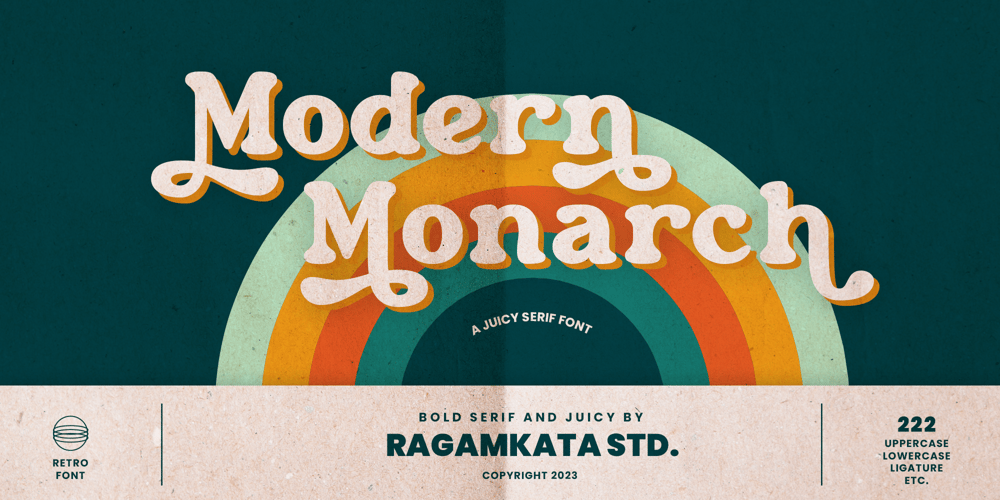
Modern Monarch Font Family was designed by Yogiswhara Dio Prakoso Riadi and published by RagamKata. Modern Monarch contains 1 styles and family package options. Modern Monarch is a retro display serif font that exudes a classic charm and bold character.With its design inspired by retro styles, this font brings an elegant touch and evokes a sense of the past.Modern Monarch Features:• Uppercase And Lowercase• Alternates And Ligatures• Numerals & Punctuation• Accented characters• Multilingual Support• Unicode PUA EncodedThanks and have a wonderful day .